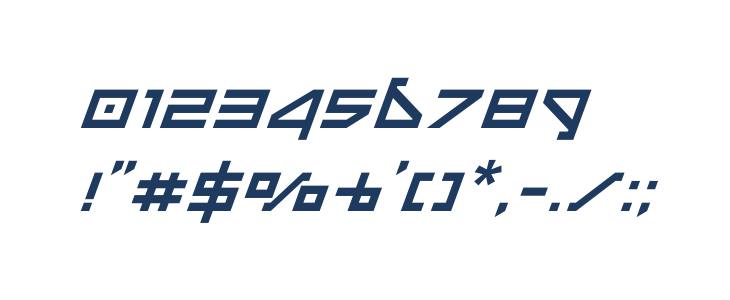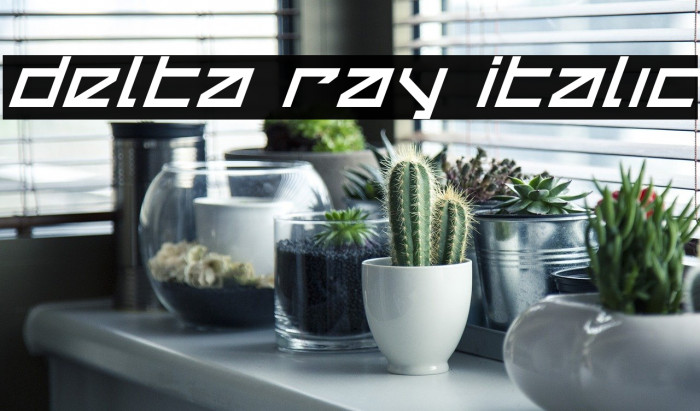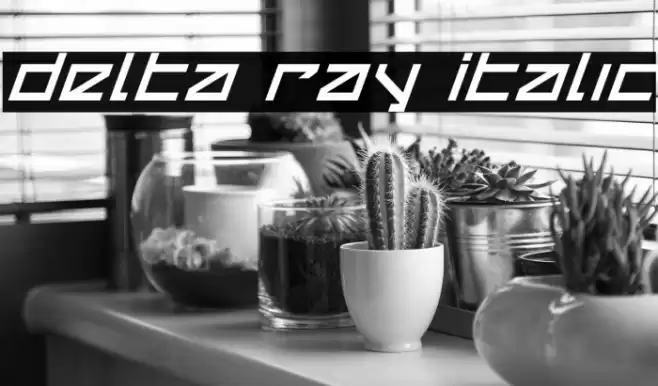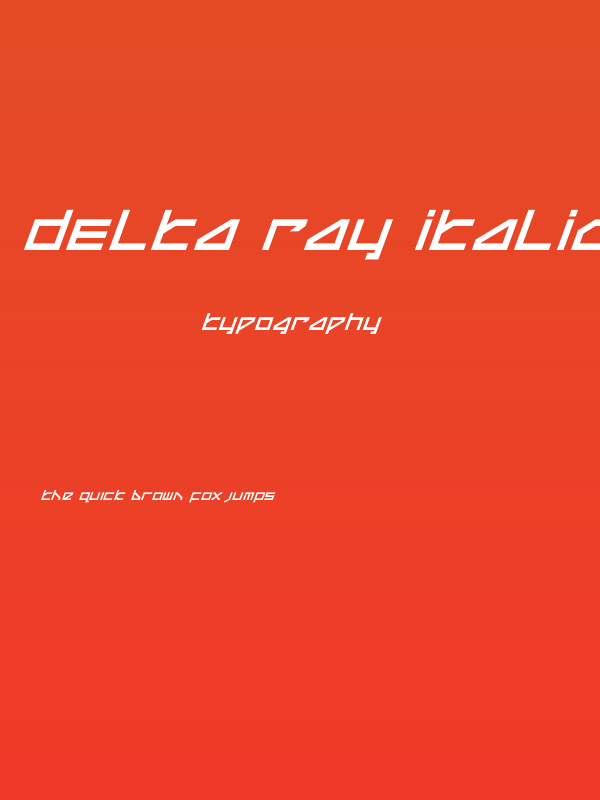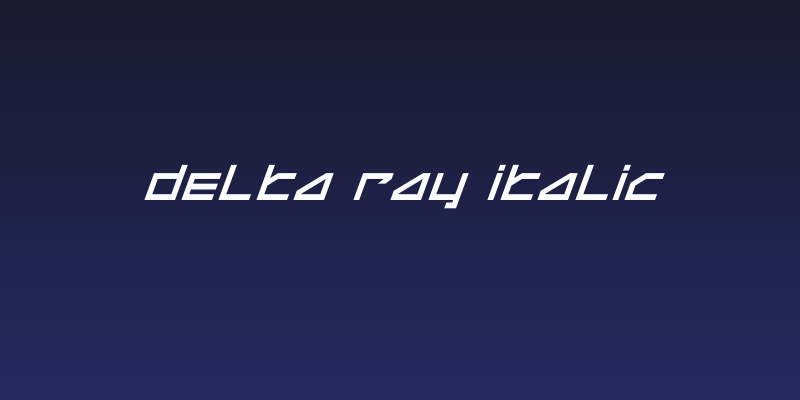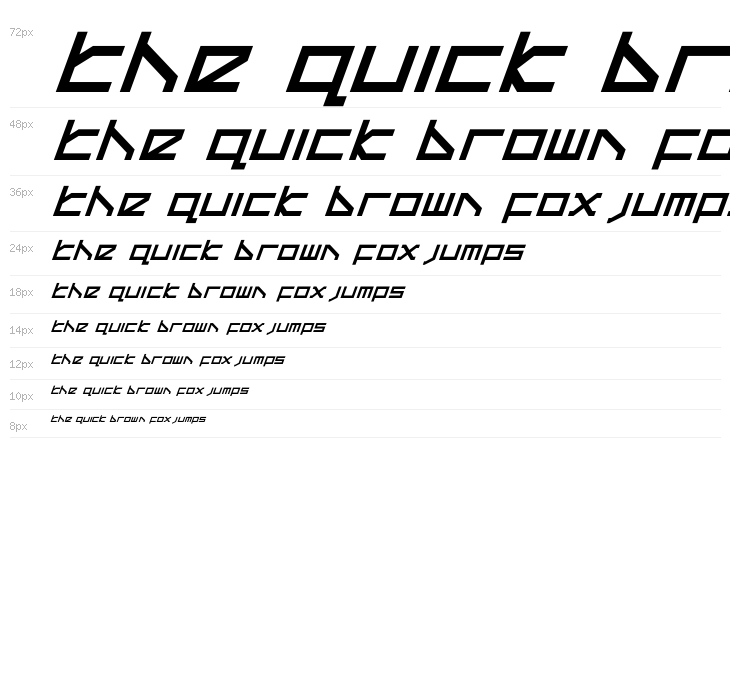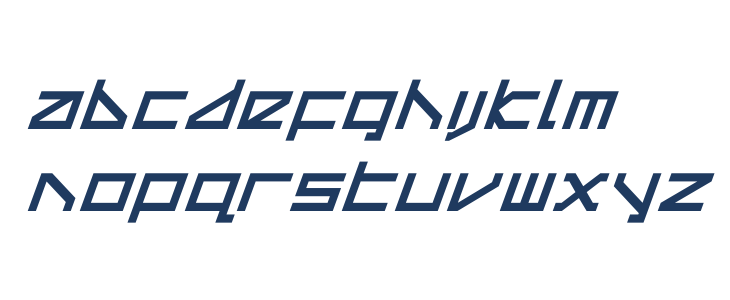
Delta Ray Italic Font
Delta Ray Italic Description
This font features a futuristic and angular design, characterized by sharp edges and a dynamic slant that gives it a sense of motion and speed. The letters are uniformly italicized, contributing to its sleek and modern appearance. The uppercase and lowercase letters maintain a consistent style, with a geometric structure that emphasizes straight lines and pointed corners. Numbers and special characters follow the same design principles, ensuring a cohesive look across all elements. The font's boldness and unique style make it stand out, suitable for projects that require a strong visual impact.